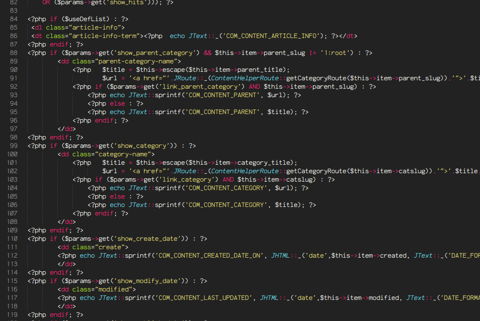
Zero StyleSlash
LigaturesNo
Con Not quite as charming at sizes of 10 and 11 pt
There are some hinting issues at these sizes: upper curves are bent sharper while the lower look is squashed to the baseline. Also, the dot of "i" appears merged with the stick at 11 pts. At 9 pts, the font looks good again (nice for watches, compiler output, etc).
Anka/Coder